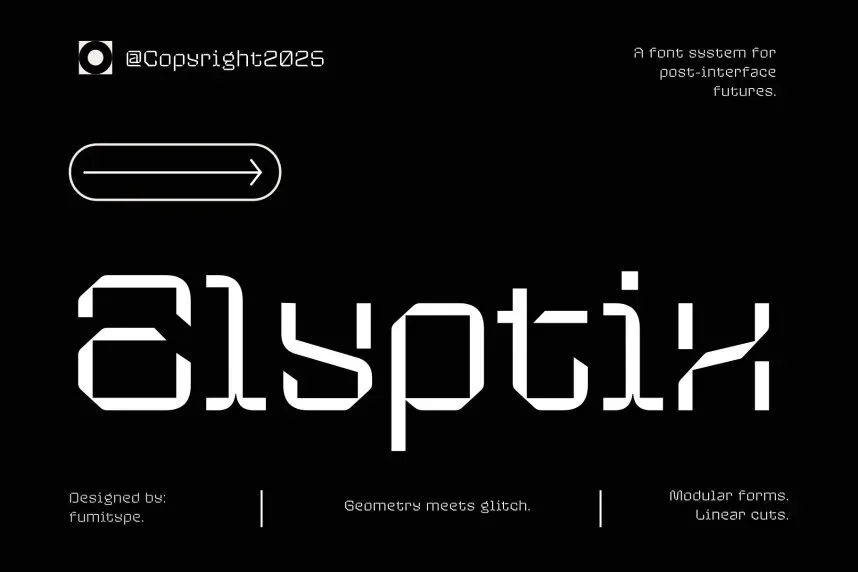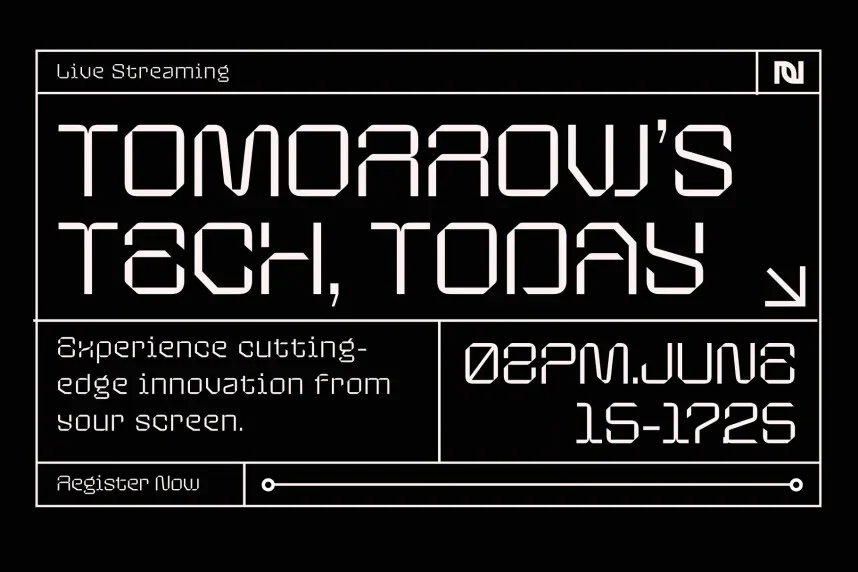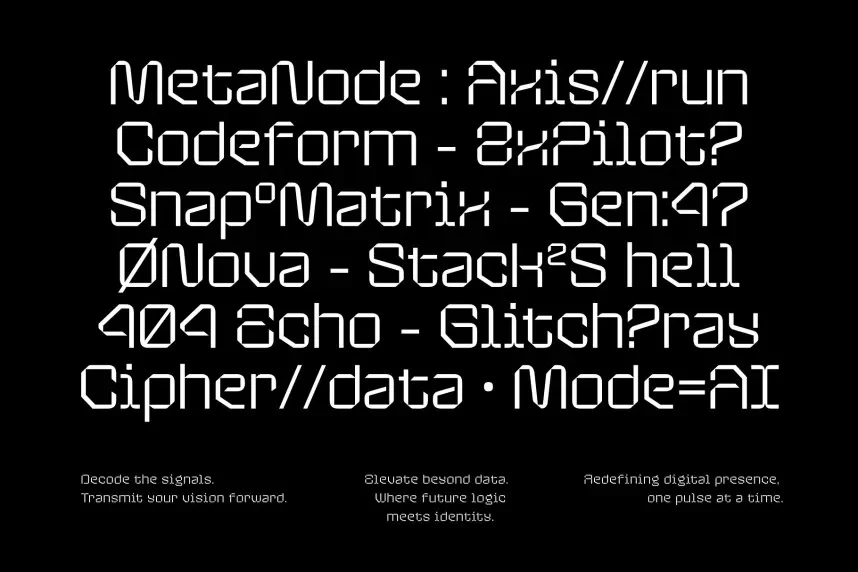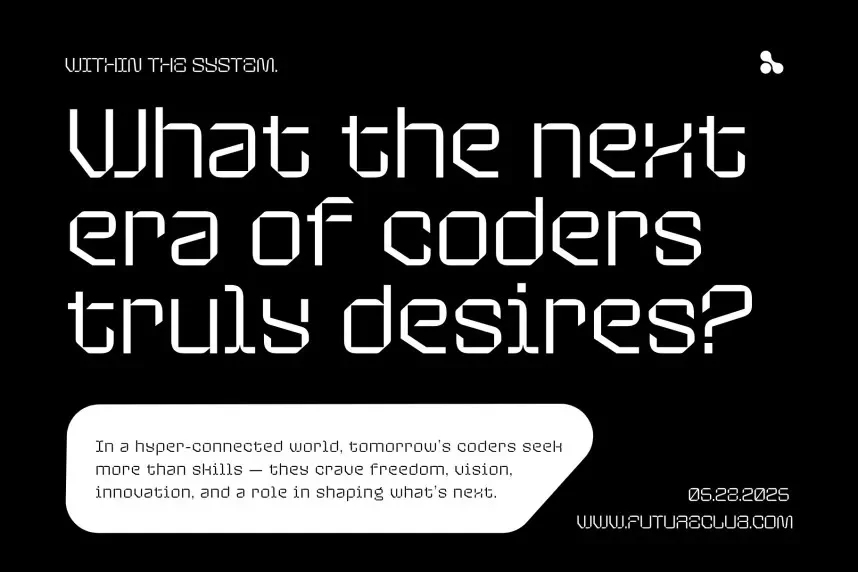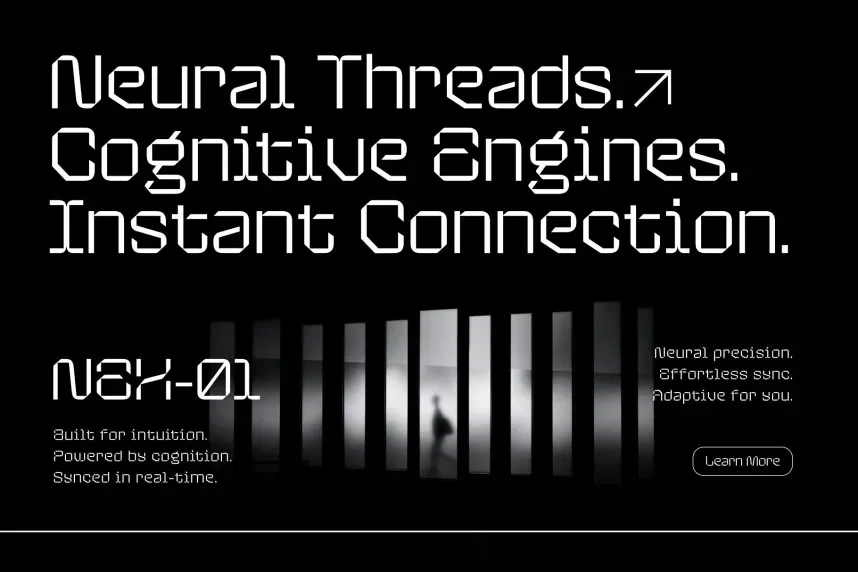
Elyptix Font supports creative layouts that need structured yet expressive typography. Overly complex display fonts often reduce consistency across characters.
Elyptix is a modern display font with geometric influences, smooth curves, and consistent stroke weight. The design focuses on clarity in short text while maintaining a contemporary look.